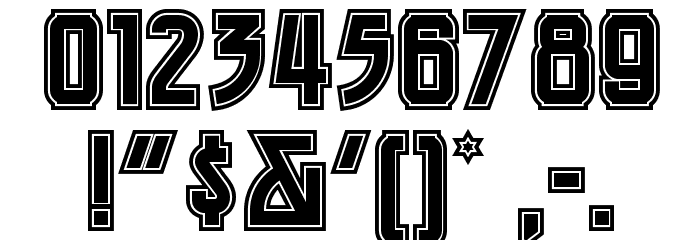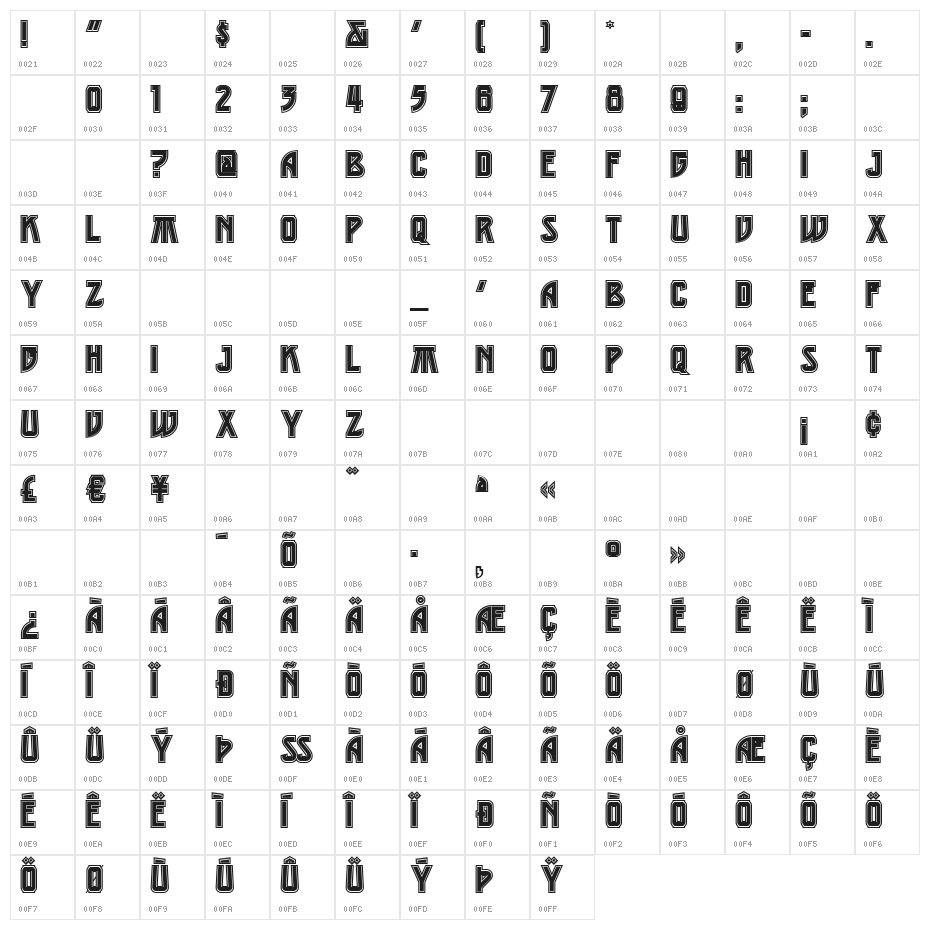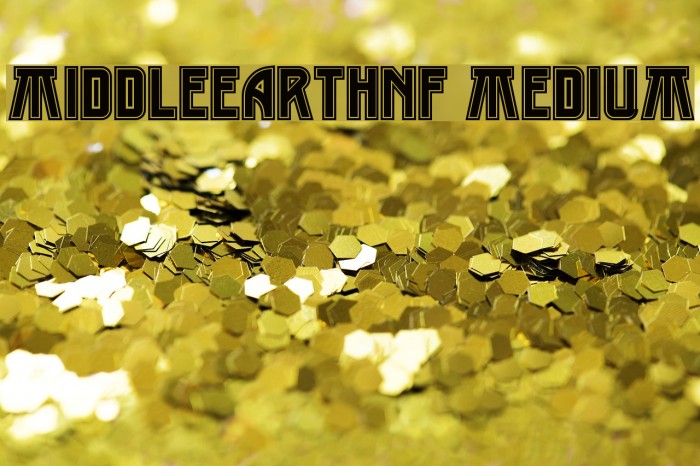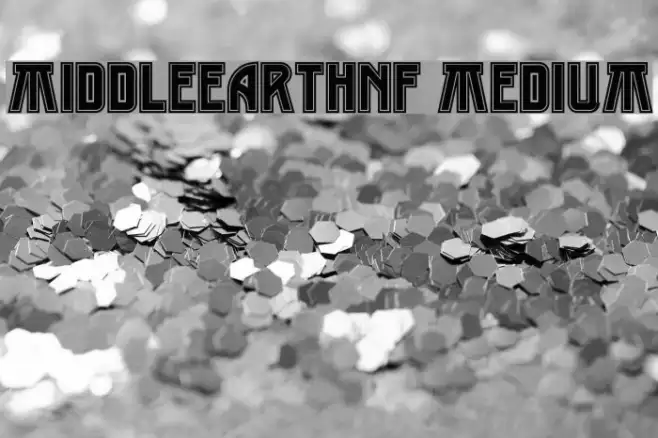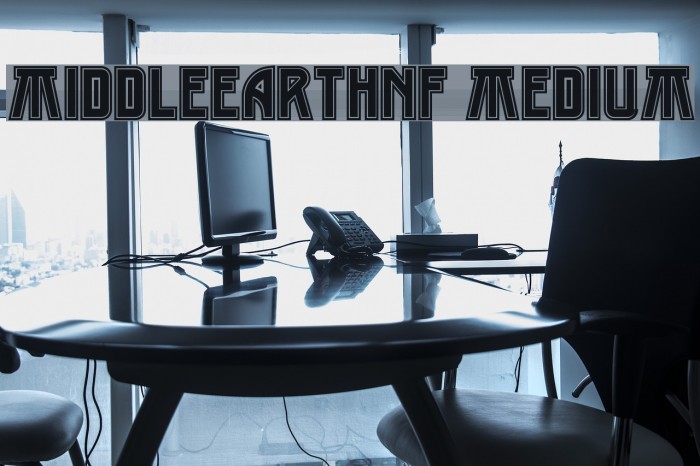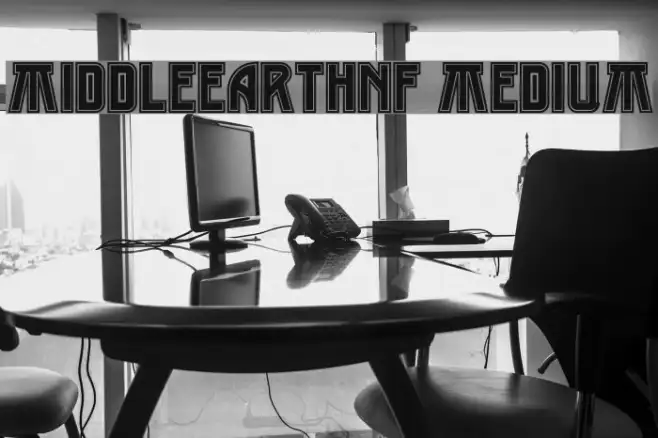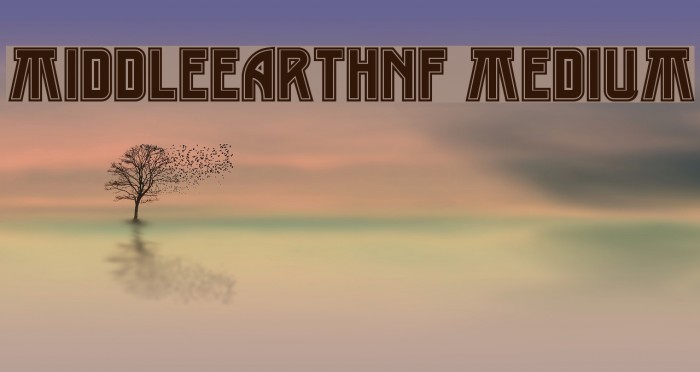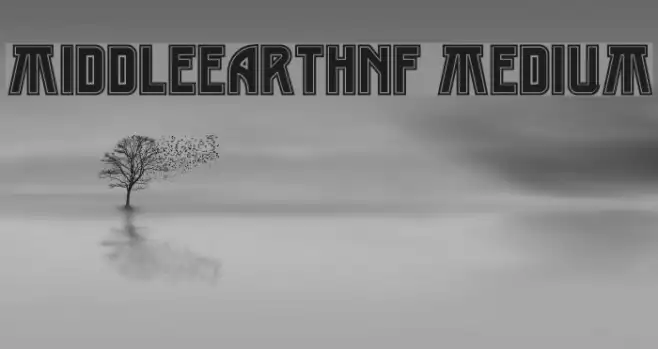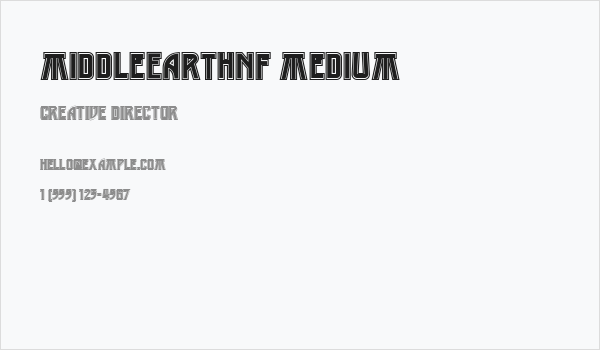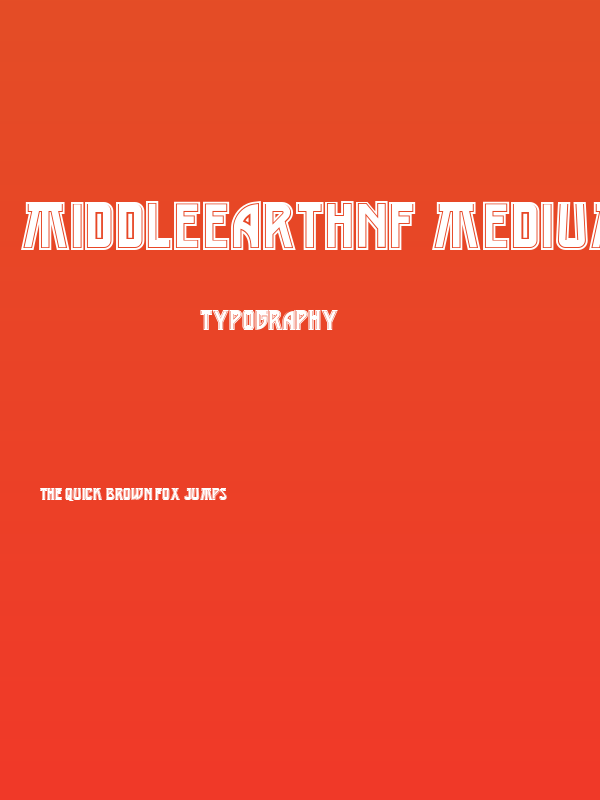
MiddleEarthNF Medium Font
MiddleEarthNF Medium Description
This font features a bold, angular design with a distinct medieval or fantasy-inspired aesthetic. The characters are outlined, giving them a three-dimensional appearance, and the strokes are thick and uniform, contributing to a strong visual impact. The uppercase letters have a unique geometric style, with sharp edges and a slightly condensed form. The numbers and special characters maintain this bold, outlined look, ensuring consistency across the set. This font is highly decorative, making it suitable for projects that require a dramatic and eye-catching typeface.
| Proposed Projects | Ideal for fantasy-themed posters, video game titles, book covers, and branding that requires a dramatic flair. |